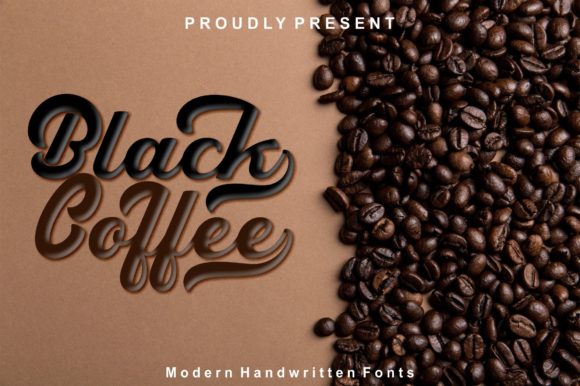
The Ultimate Guide to Black Coffee Font: Elevate Your Designs with Style
Ah, the quest for the perfect font – a journey every designer, crafter, and creative hobbyist can relate to. I recall working on a project where I spent hours searching for a font that exuded elegance and sophistication. My client wanted a stylish and bold script font that would make their brand stand out. That’s when I stumbled upon Black Coffee Font, and it instantly became my go-to choice. In this article, I’ll share my experience with Black Coffee Font, its features, and how to make the most of it in your designs.
What is Black Coffee Font?
Black Coffee Font is a stylish and bold script font that has gained popularity among designers and crafters. Its unique charm lies in its PUA (Private Use Area) encoding, which allows easy access to all glyphs and swashes. This feature makes it an excellent choice for creative projects, such as branding, packaging, and social media graphics.
- 💥 **Stylish and bold**: Black Coffee Font makes a statement with its confident and elegant strokes.
- ✅ **Easy to use**: PUA encoding ensures seamless access to glyphs and swashes, making it a breeze to customize.
- 🎨 **Versatile**: Suitable for various design projects, from logos and branding to invitations and social media graphics.
- 👍 **High-quality**: Professionally crafted with attention to detail, ensuring crisp and clear rendering.
- 🤯 **Overusing swashes**: Be cautious not to overdo it with the swashes, as too many can make your design look cluttered.
The Story Behind Black Coffee Font
Black Coffee Font was crafted with passion and dedication by a talented type designer. Inspired by the world of coffee and the late-night creative sessions, the designer aimed to create a font that would fuel imagination and bring style to any project. The result is a bold and elegant script font that has captured the hearts of designers and crafters worldwide.